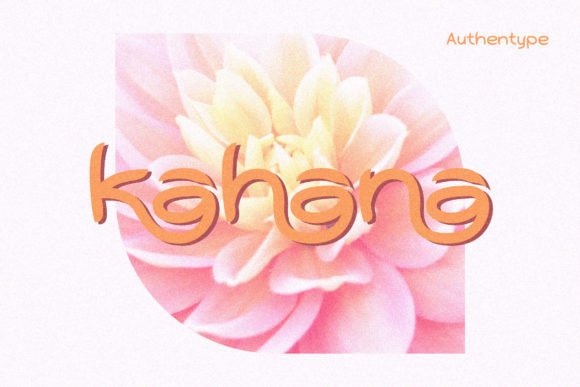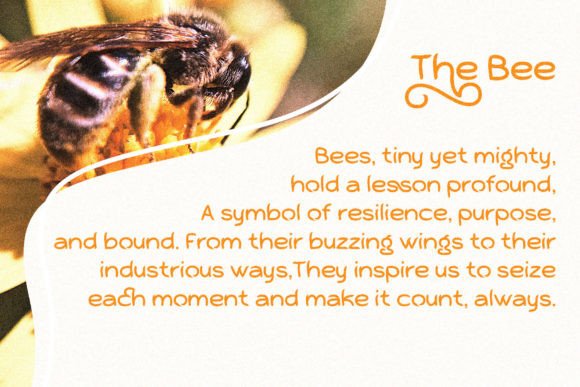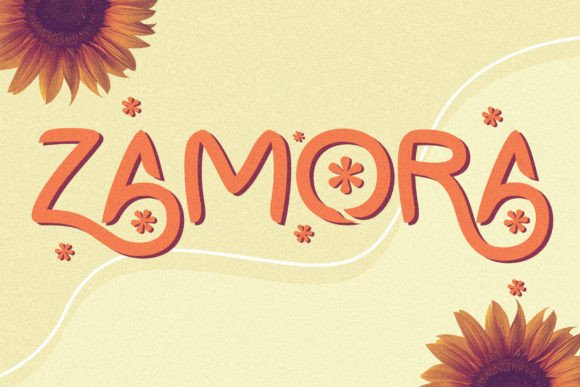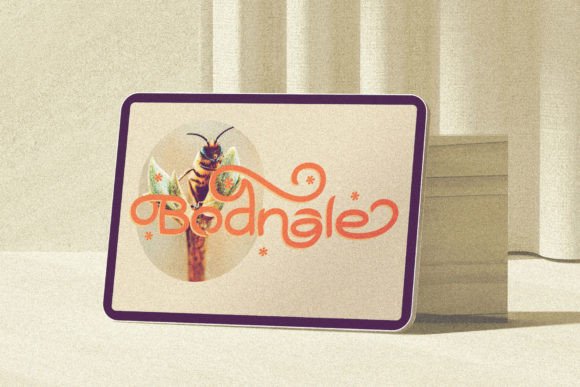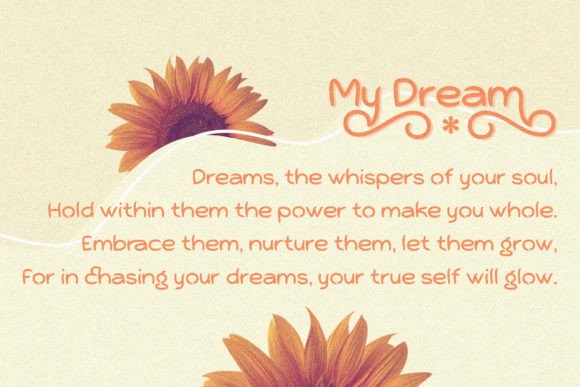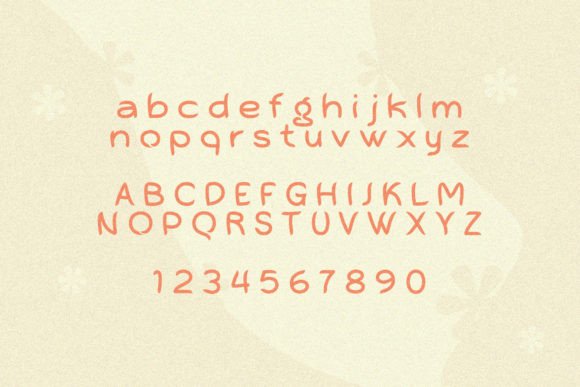
Introducing Bodnale: The Font That Adds a Splash of Quirky Elegance to Your Designs
In the world of typography, a new star has emerged, and its name is Bodnale. This innovative font is designed to bring a fresh breath of air to your designs, infusing them with a playful yet sophisticated aesthetic that will make your work stand out from the crowd. Whether you’re a designer, a crafter, or simply someone who appreciates the art of typography, Bodnale is sure to captivate you with its unique style and charm.
The Unique Features of Bodnale
So, what sets Bodnale apart from other fonts? The answer lies in its abstract shapes. Each letter in the Bodnale font is meticulously crafted to form eye-catching elements that give the font a sense of dynamism and vitality. The flowing lines, intriguing curves, and unexpected angles that make up this delightful font will mesmerize you and inspire your creativity.
One of the most distinctive features of Bodnale is its ability to bring each character to life. Every letter pulsates with its own personality, making it perfect for designs that require a touch of whimsy and elegance. Whether you’re working on a logo, a website, an advertisement, or any creative project, Bodnale will add that extra touch of magic that sets your work apart.
Functionality Meets Style
But Bodnale is not just about looks; it’s designed with functionality in mind too. We understand that legibility is key, especially when it comes to digital designs. That’s why Bodnale is crafted to be highly legible, making it perfect for use in a variety of contexts, from body text to headings and titles.
The font’s unique design ensures that it remains clear and readable, even at smaller sizes. This makes it an excellent choice for designers who want to add a touch of personality to their work without compromising on functionality. Whether you’re designing a website, a brochure, or a business card, Bodnale is the perfect choice.
Bodnale is a font that will appeal to designers and crafters alike. Its unique style and charm make it perfect for a wide range of creative projects, from graphic design and branding to crafting and DIY projects.
For designers, Bodnale offers a fresh and exciting alternative to traditional fonts. Its abstract shapes and playful aesthetic make it perfect for designs that require a touch of whimsy and elegance. Whether you’re working on a logo, a website, or an advertisement, Bodnale is sure to make your design stand out.
For crafters, Bodnale offers a unique and inspiring font that can be used in a variety of creative projects. Whether you’re making a handmade card, a scrapbook, or a piece of jewelry, Bodnale is the perfect choice. Its delicate lines and intricate details make it perfect for crafting and DIY projects.
Tips for Using Bodnale in Your Designs
| Font Name | Bodnale Font |
| Author | Authentype |
In conclusion, Bodnale is a font that is sure to captivate designers and crafters alike. Its unique style and charm make it perfect for a wide range of creative projects, from graphic design and branding to crafting and DIY projects. With its abstract shapes, playful aesthetic, and high legibility, Bodnale is the perfect choice for anyone looking to add a touch of whimsy and elegance to their designs.
So why settle for mundane and predictable fonts when you can have a font that adds a splash of quirky elegance to your designs? Introducing Bodnale, the font that will take your designs to the next level.